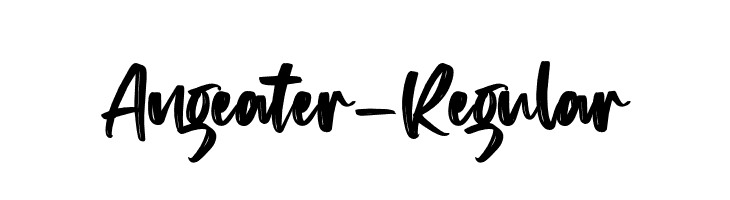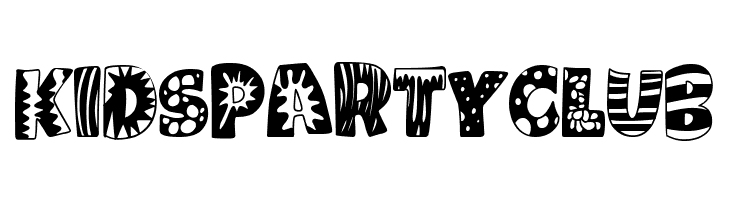
A bold, handwritten-style font with dynamic, brush-like strokes.
An elegant, flowing script font with a calligraphic touch.
A playful, handwritten font with rounded, consistent strokes and a casual feel.
A graceful script font with elegant loops and flourishes, perfect for decorative use.
A bold, decorative font with vintage flair and high contrast strokes.
A dynamic and elegant script font with flowing cursive letterforms.
A bold, expressive handwritten font with fluid strokes and a modern feel.
An elegant, flowing script font with a handwritten appearance.
A bold, decorative font with a futuristic and edgy style.
A bold, geometric font with intricate patterns and strong outlines.